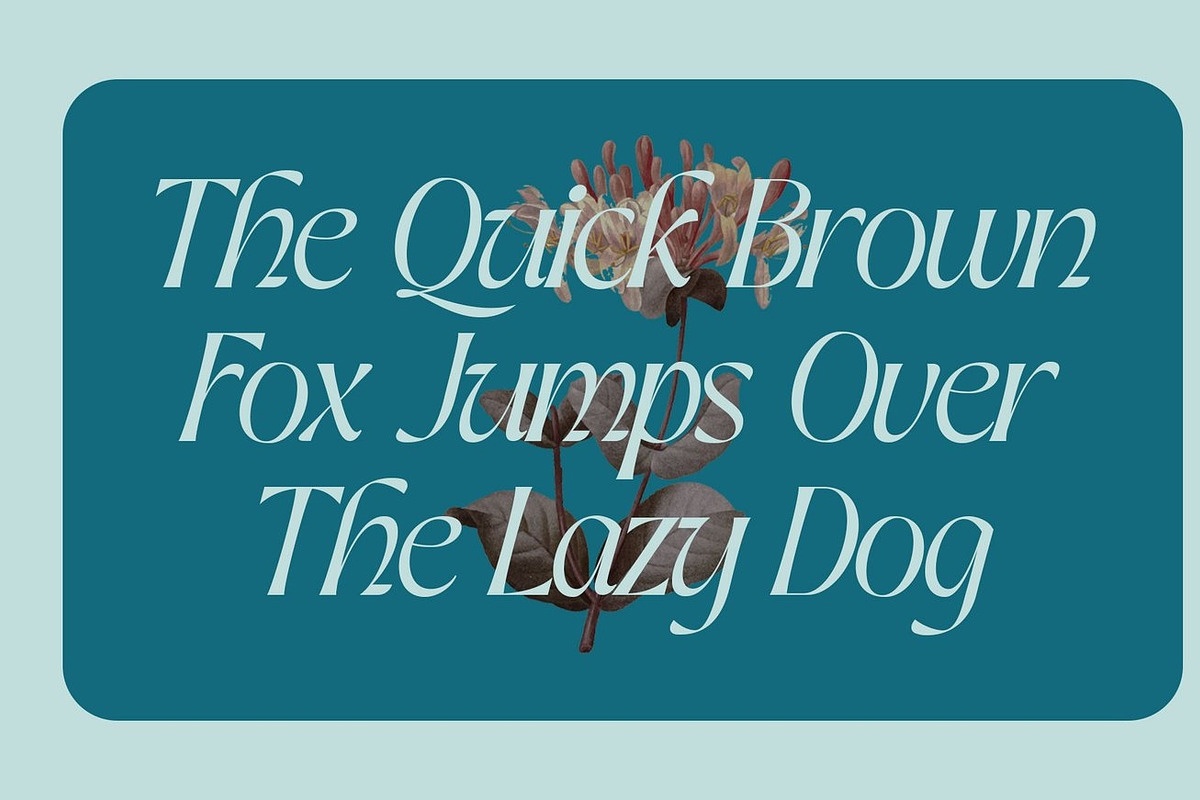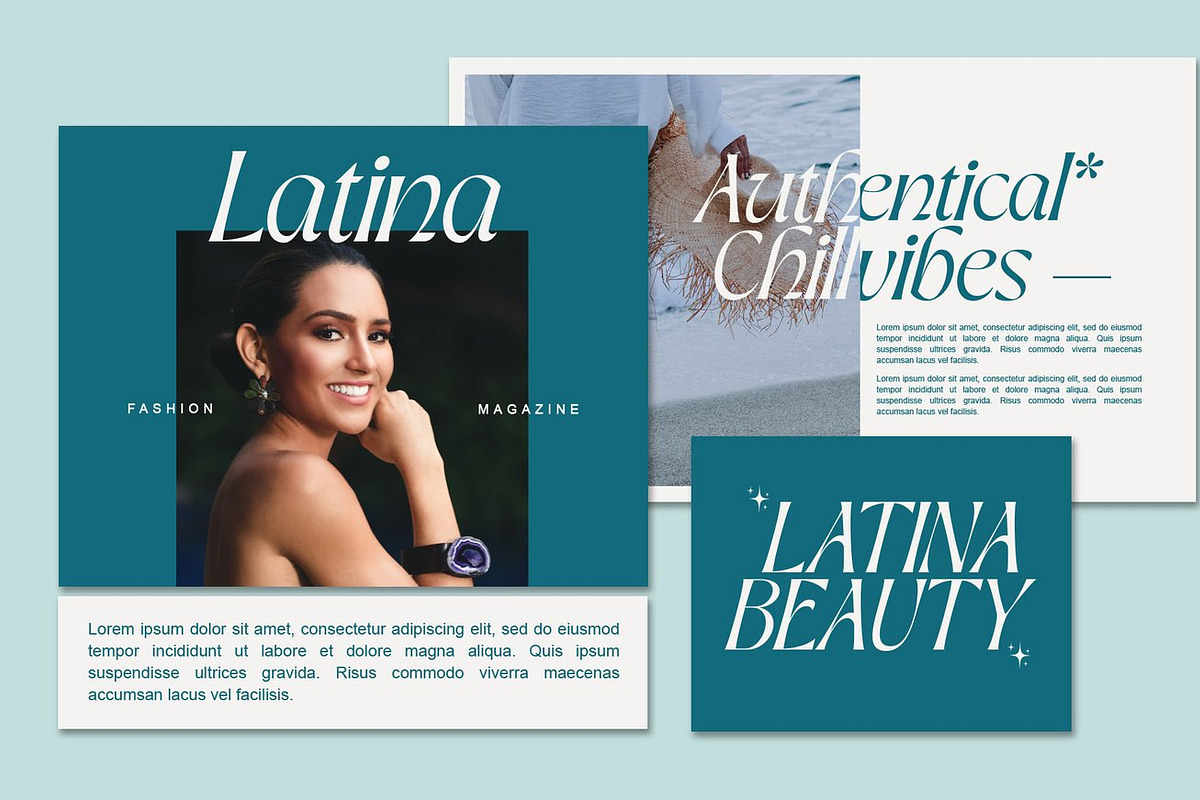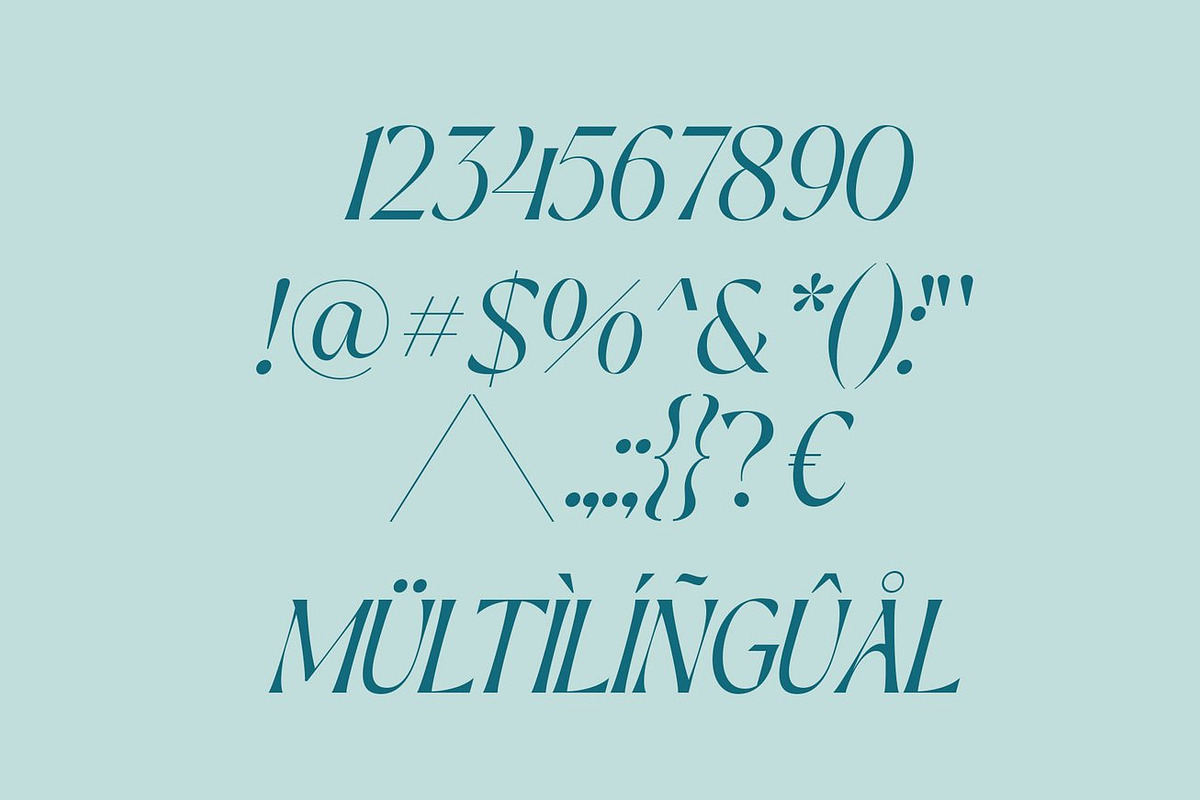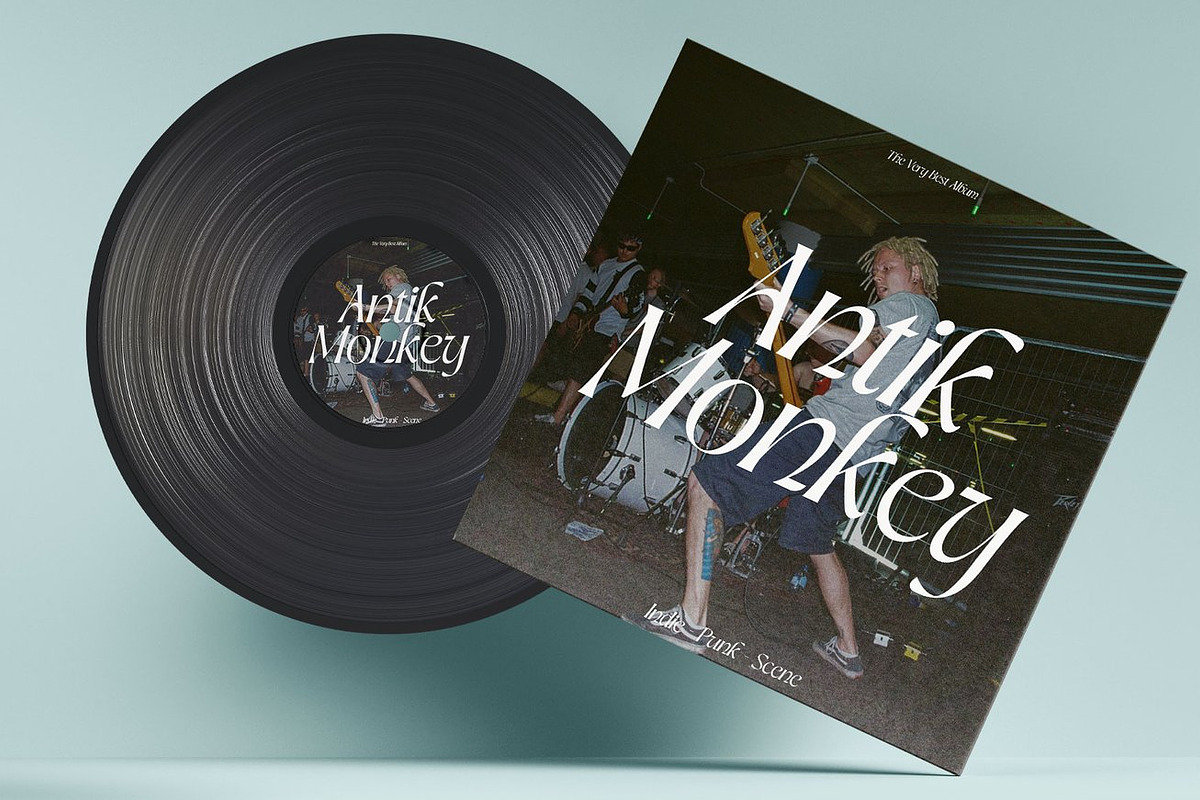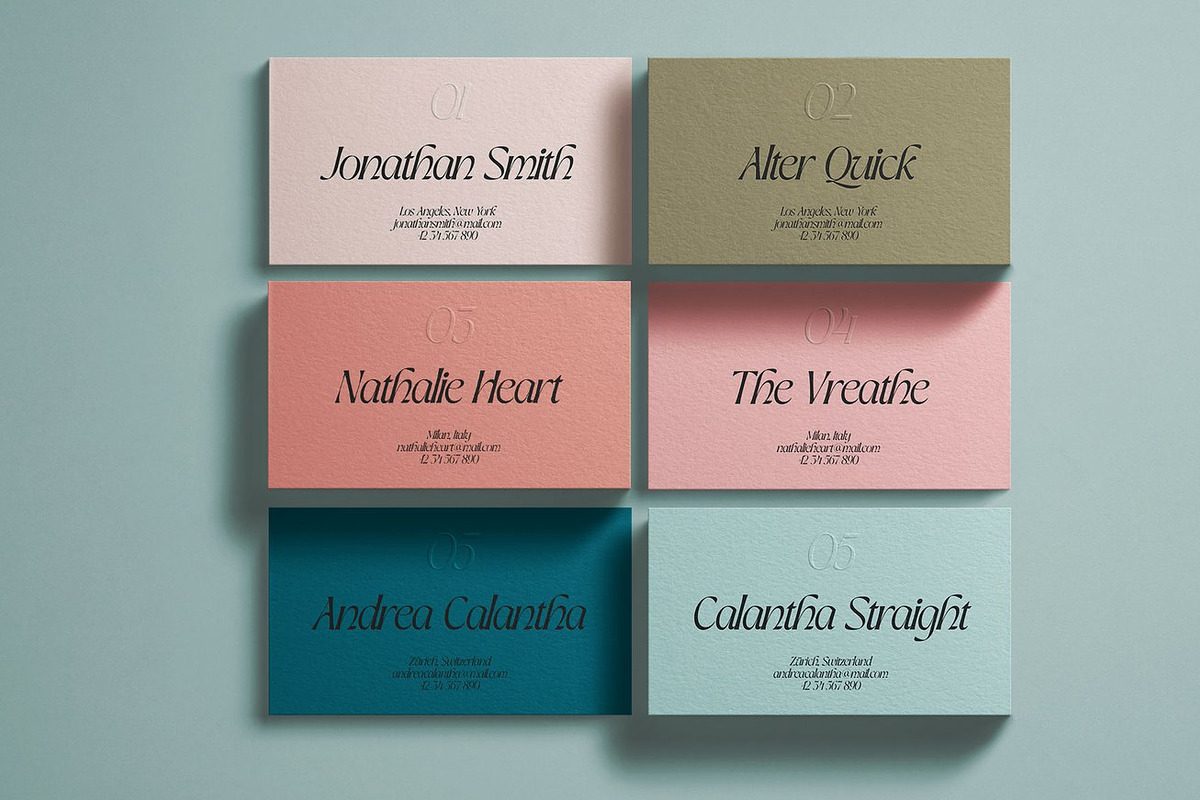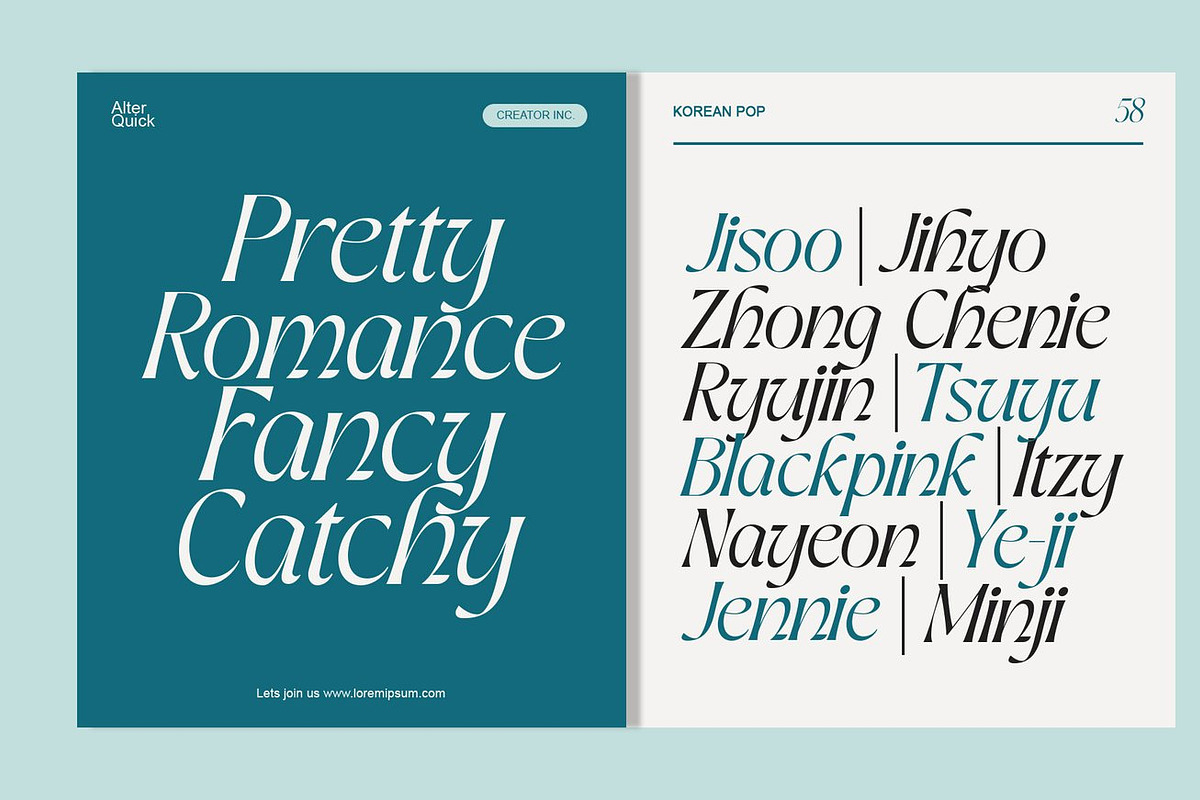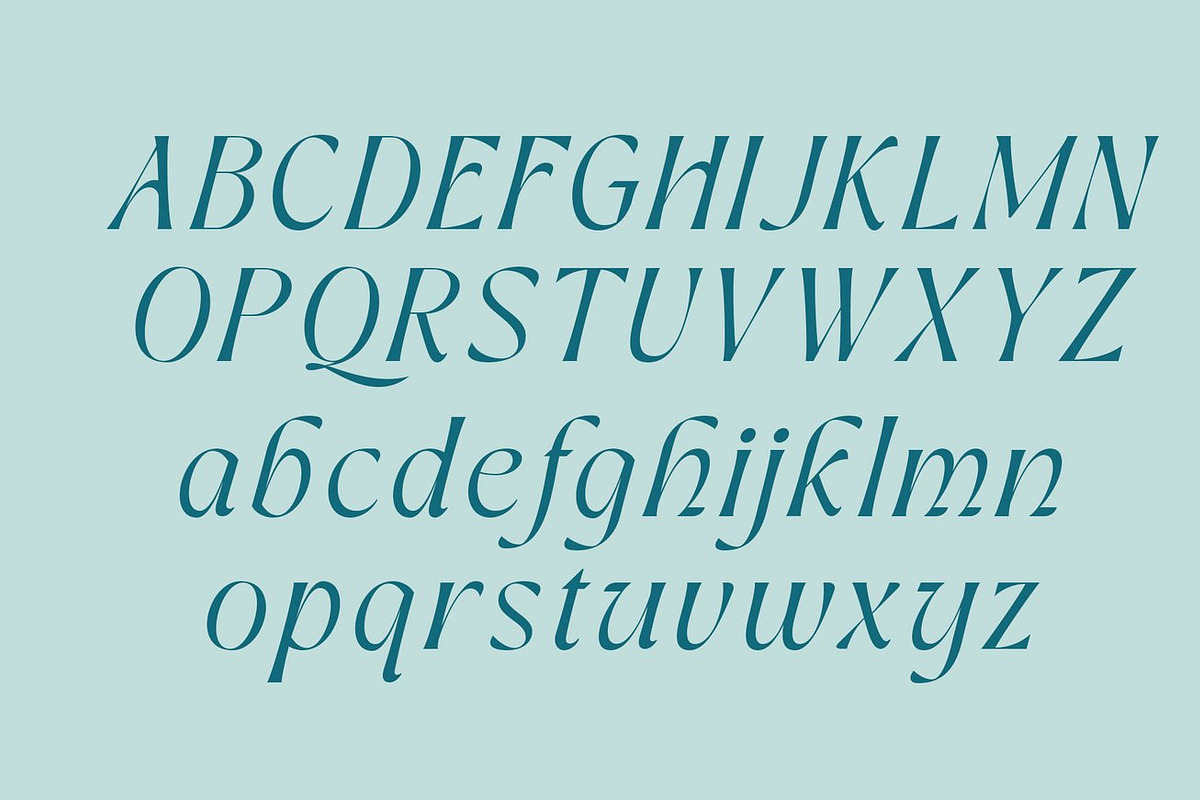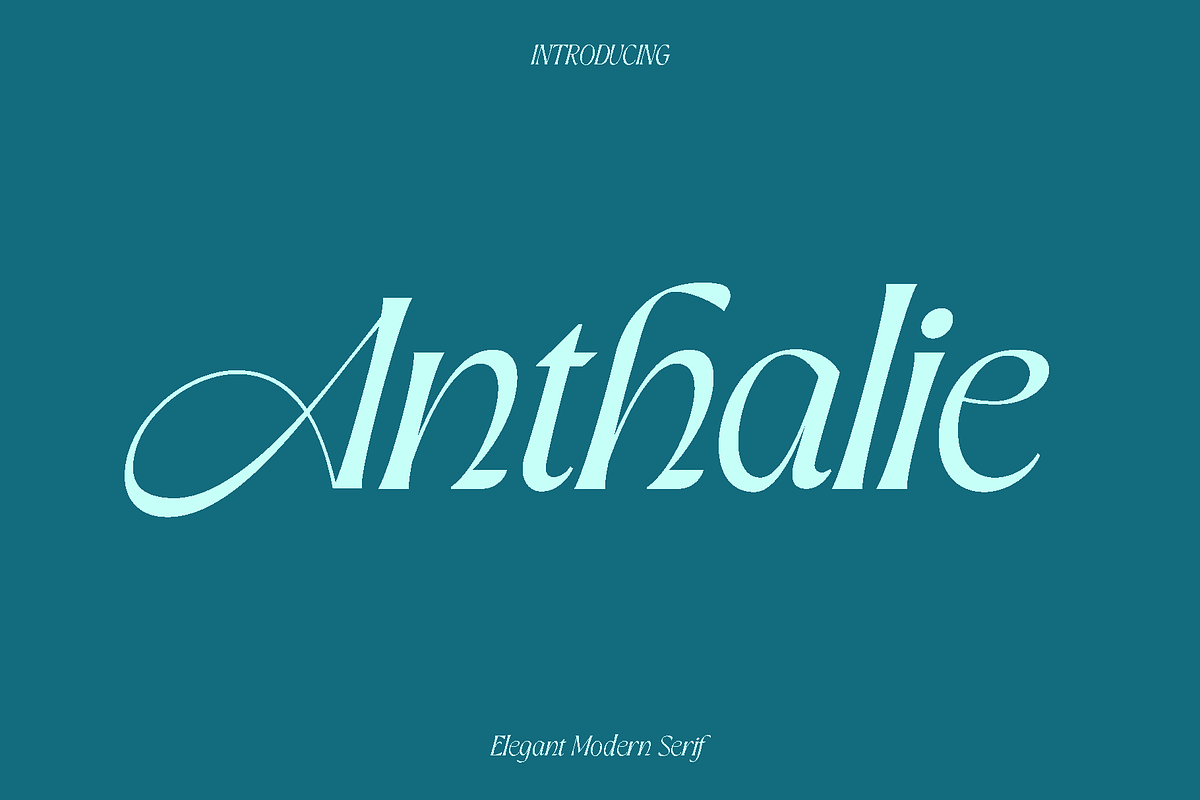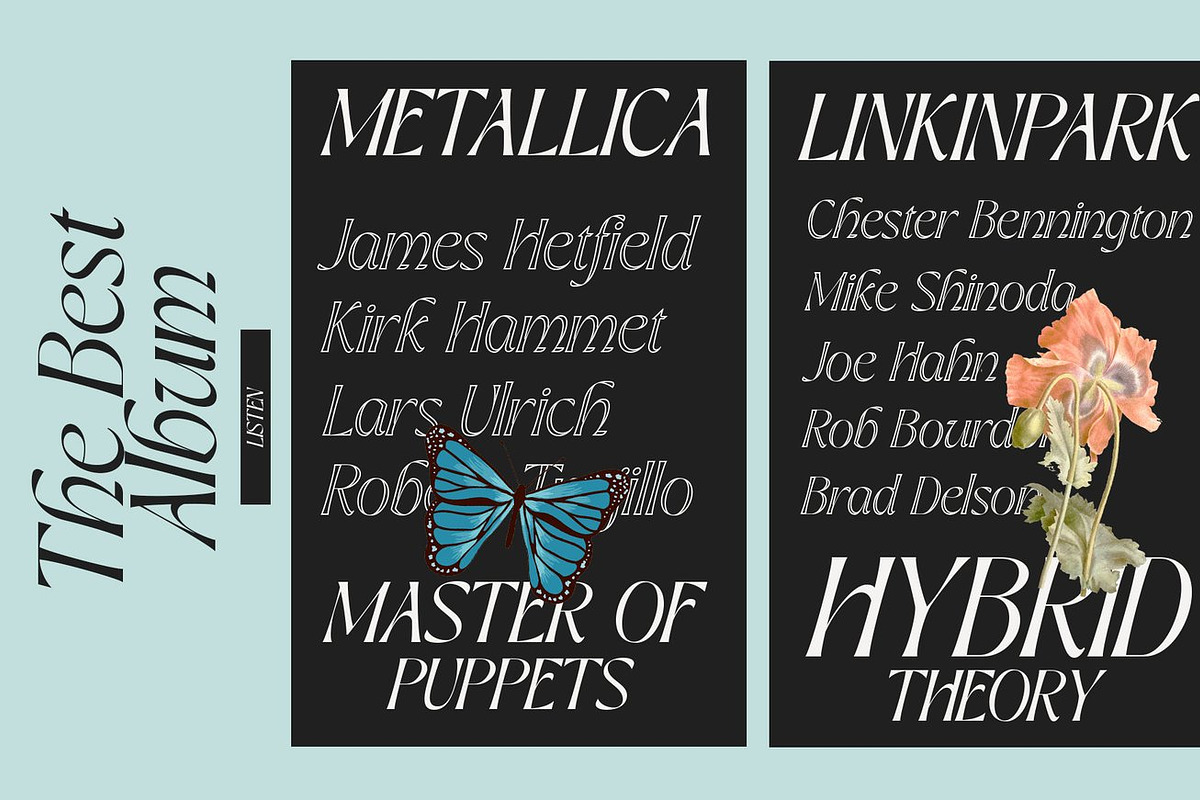
Anthalie - Elegant Modern Serif
Anthalie is a refined and versatile typeface created to bring clarity, elegance, and a modern touch to a wide range of design projects. Designed with balanced proportions and graceful details, Anthalie carries a calm and confident personality that makes text feel polished and professional. Its clean structure allows it to remain highly readable while still offering a stylish presence that enhances the overall visual experience.
Inspired by contemporary editorial design and timeless typographic principles, Anthalie shines in books, magazines, branding, logos, photography overlays, quotes, blog headers, posters, and advertisements. It adapts beautifully to both large display settings and smaller text applications, giving designers the flexibility to build cohesive and sophisticated layouts. Whether your project is minimal and modern or expressive and creative, Anthalie adds a sense of harmony and visual refinement.
Anthalie feels approachable yet elegant, making it suitable for both personal and commercial work. Its thoughtful construction ensures consistency across different uses, while its subtle character details give your designs a unique and memorable touch. This typeface is an excellent choice for designers seeking a dependable font that blends function with aesthetic appeal.
Anthalie Font Features:
• Uppercase and lowercase characters
• Numerals and functional punctuation
• Multilingual support
• Clean and readable letterforms